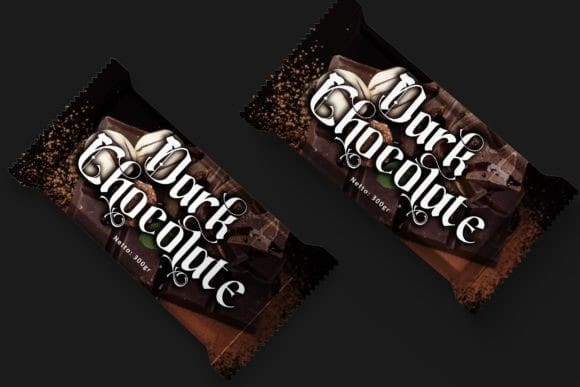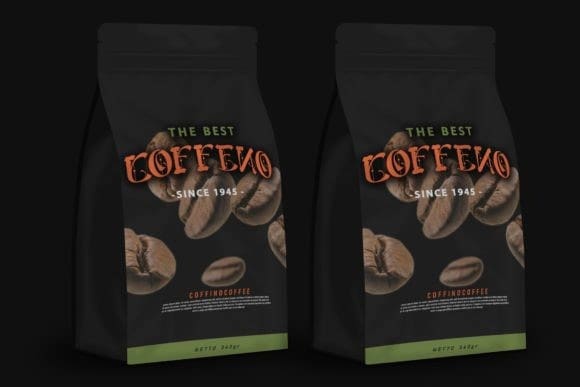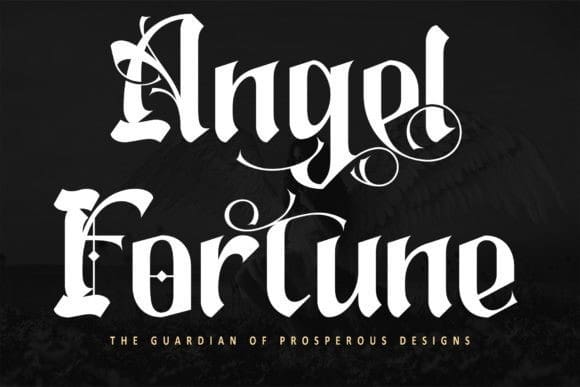
Angel Fortune Font
Angel Fortune Font, a mesmerizing blackletter typeface that embodies the essence of elegance and prosperity. Its bold, intricate strokes create a powerful presence, making it the perfect choice for upscale product packaging, sophisticated branding, and other high-impact design projects.
The font’s PUA encoding provides seamless access to a plethora of unique glyphs and swashes, ensuring your creative endeavors exude a sense of fortune and grace. Elevate your designs with Angel Fortune, and let your work shine with timeless elegance and distinguished charm.